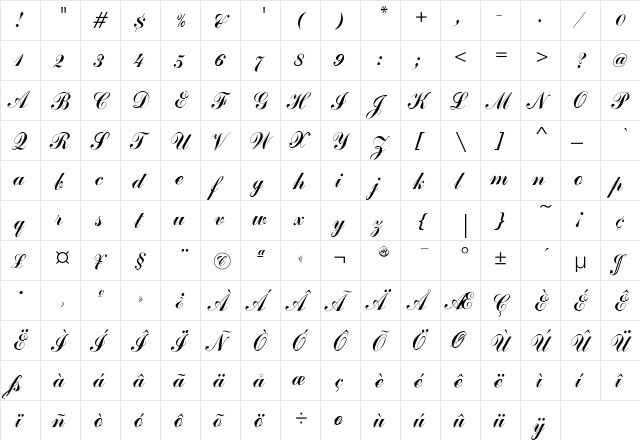
CommercialScriptEF Regular
Design Context for CommercialScriptEF Typeface
CommercialScriptEF flows with the natural rhythm of handwritten lettering, making it ideal for designs that call for warmth and personal expression.
Font Pairing: Combine CommercialScriptEF with a simple geometric sans for maximum contrast — the tension between flowing curves and clean structure is a classic typographic pairing.
Pro Tip: Pair CommercialScriptEF with a clean sans-serif for supporting text. The contrast between fluid script and geometric structure creates an elegant typographic hierarchy.